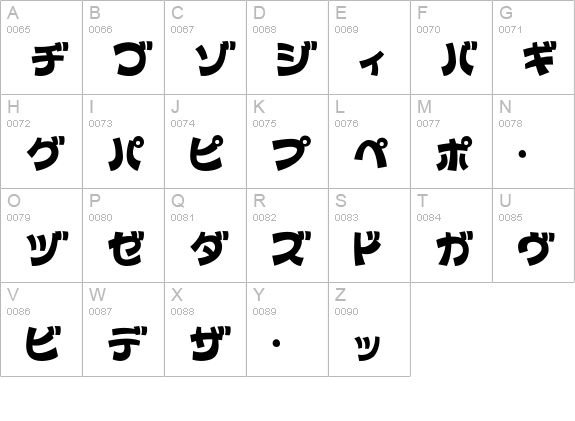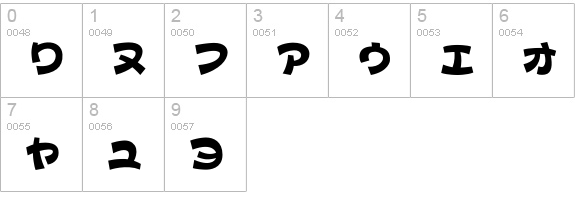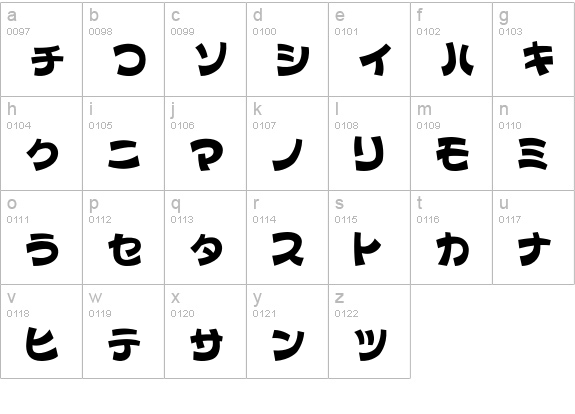
Colopocle-KT Font Details
Colopocle-KT font is a captivating and modern typeface that brings a unique touch to any design project. With its sleek lines and elegant curves, this font exudes sophistication and style. Whether you're creating a logo, poster, or website, Colopocle-KT font is sure to make a statement. The best part? Colopocle-KT font is completely free to download at FontsMarket.com. That's right, this stunning font can be yours with just a few clicks, allowing you to elevate your designs without breaking the bank. Don't miss out on the opportunity to add Colopocle-KT font to your font collection today!